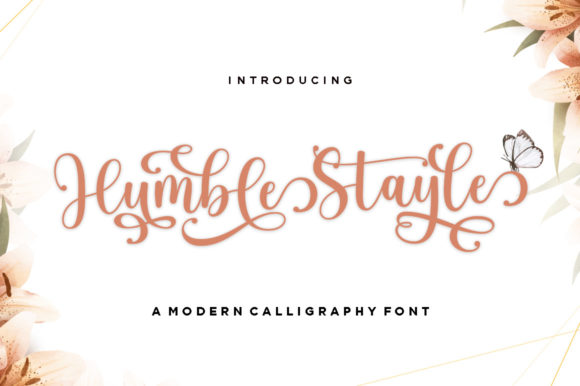
Indulge in the elegance of Humble Stayle, a captivating script font that will elevate your creations to new heights. With its intricate details and graceful curves, this font embodies the essence of timeless sophistication. Whether you're a seasoned designer or a budding enthusiast, Humble Stayle invites you to express your individuality through the art of written words.
Crafted with meticulous precision and encoded with PUA, this font grants you effortless access to a treasure trove of glyphs and swashes. Unleash your imagination and let the boundless possibilities of Humble Stayle inspire your designs.
Embrace the allure of Humble Stayle and let your words dance with an unmatched grace. This font is not merely a tool; it is an extension of your creative spirit, enabling you to craft messages that resonate with elegance and charm.
Step into a world of refined typography with Humble Stayle. Let its enchanting characters captivate your audience and leave an indelible mark on their hearts. Every letter is a masterpiece, waiting to be woven into a tapestry of words that will stir emotions and ignite imaginations.
Humble Stayle is the perfect choice for those seeking to elevate their brand identity, create stunning invitations, design captivating social media posts, or simply add a touch of sophistication to any written communication. Its versatility knows no bounds, adapting seamlessly to a myriad of styles and projects.
Dive into the exquisite world of Humble Stayle and discover the endless possibilities it holds. Unleash your creativity and let your words shine with a brilliance that will leave a lasting impression.